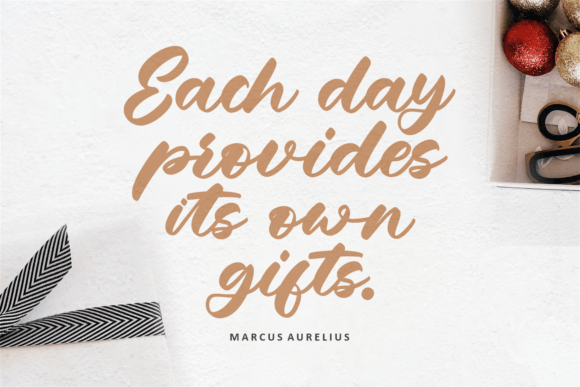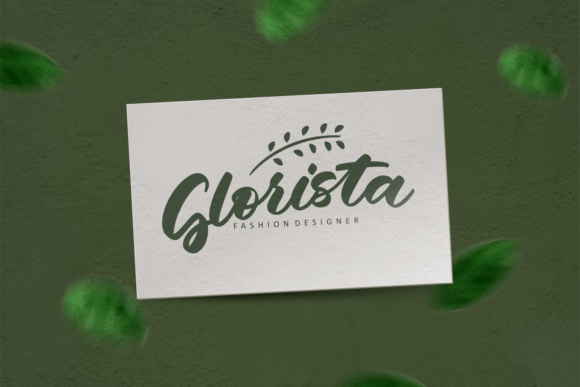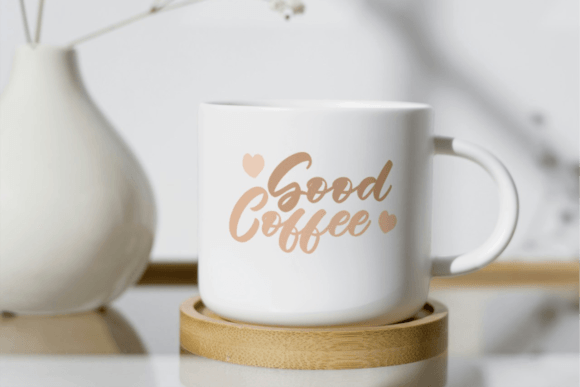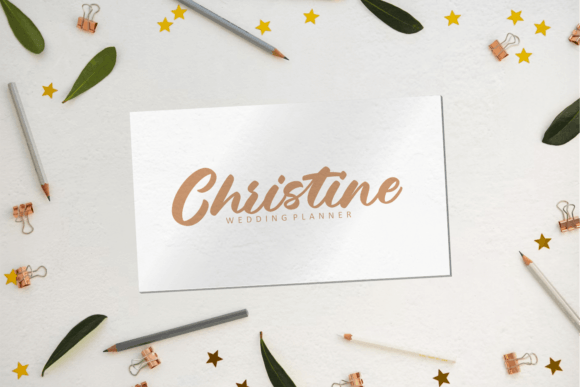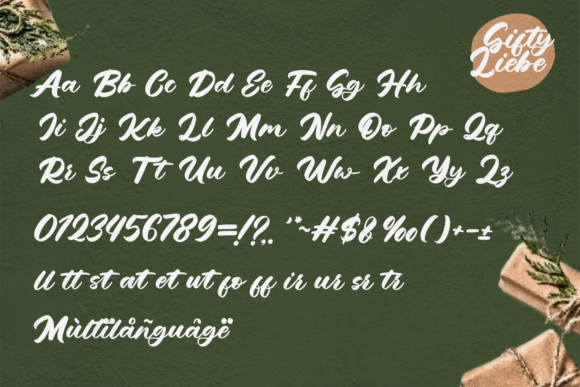
Gifty Liebe Font: The Perfect Handwritten Font for Crafty Designs
Are you a designer, crafter, or DIY enthusiast looking for a font that adds a personal touch to your creations? Look no further than Gifty Liebe, a beautiful, cursive handwritten font that’s perfect for a variety of projects. In this article, we’ll explore the features and benefits of Gifty Liebe, and show you how to make the most of this versatile font.
What is Gifty Liebe Font?
Gifty Liebe is a cursive handwritten font that’s designed to mimic the look and feel of handwritten script. It’s a very familiar font that’s reminiscent of traditional handwriting, making it perfect for crafting, DIY designs, and other creative projects. The font is highly legible and easy to read, making it suitable for a wide range of applications.
Features of Gifty Liebe Font
- Cursive Handwritten Style: Gifty Liebe has a beautiful, flowing cursive style that’s perfect for adding a personal touch to your designs.
- Highly Legible: The font is highly legible and easy to read, making it suitable for body text and headlines.
- Versatile: Gifty Liebe can be used for a wide range of projects, from crafting and DIY designs to greeting cards, gifts, and social media.
- Easily Customizable: The font can be easily customized to fit your design needs, including adjusting the size, color, and style.
Uses of Gifty Liebe Font
Gifty Liebe is a versatile font that can be used for a wide range of projects, including:
- Crafting and DIY Designs: Gifty Liebe is perfect for crafting and DIY designs, such as scrapbooking, card making, and other paper crafts.
- Greeting Cards: The font is ideal for creating personalized greeting cards for special occasions, such as birthdays, weddings, and holidays.
- Gifts: Gifty Liebe can be used to create custom gift tags, gift boxes, and other gift wrapping materials.
- Social Media: The font can be used to create engaging social media graphics, such as quotes, inspirational messages, and other visual content.
Benefits of Using Gifty Liebe Font
Using Gifty Liebe font offers several benefits, including:
- Unique and Personalized: Gifty Liebe adds a personal touch to your designs, making them stand out from the crowd.
- Easily Readable: The font is highly legible, making it easy for your audience to read and understand your message.
- Versatile: Gifty Liebe can be used for a wide range of projects, making it a great addition to your font library.
- Time-Saving: The font can save you time and effort in creating custom designs, as it’s easy to use and customize.
Tips for Using Gifty Liebe Font
Here are some tips for using Gifty Liebe font:
- Use it for Headlines and Body Text: Gifty Liebe is suitable for both headlines and body text, making it a great choice for a wide range of projects.
- Experiment with Colors and Sizes: The font can be easily customized to fit your design needs, so don’t be afraid to experiment with different colors and sizes.
- Pair it with Other Fonts: Gifty Liebe can be paired with other fonts to create a unique and visually appealing design.
Gifty Liebe font is a beautiful, cursive handwritten font that’s perfect for crafting, DIY designs, and other creative projects. Its highly legible and versatile nature makes it suitable for a wide range of applications, from greeting cards to social media graphics. With its unique and personalized style, Gifty Liebe is a great addition to any designer’s font library.